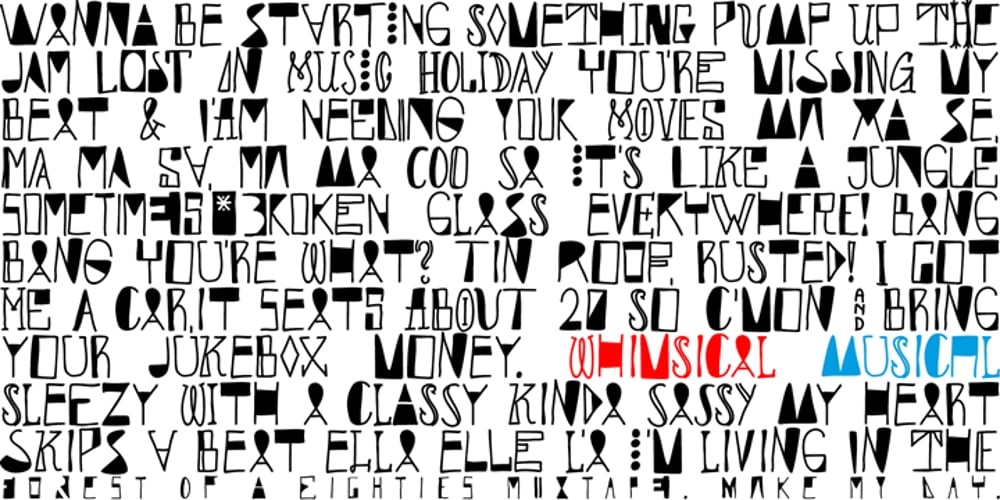
Whimsical Musical Font Family was designed by Harald Geisler and published by Harald Geisler. Whimsical Musical contains 1 styles and family package options. Whimsical Musical is a vivid, hand drawn font with 405 alternate letters, all caps. Developed from a lighthearted drawing in my sketchbook saying the German word “MUSIK” cheerfully over and over in twenty vivid variations. Next to it was the date “6th April 2007”. This initial idea has burst into a font that is full of surprises and whimsical turns. It is dynamically suggestive, like music, and humorously chaotic, as in Dada. Each uppercase letter is enriched with ten stylistic alternates (OpenType stylistic sets) to create a heap of playful variations amounting to a mountain of possibilities. Recommended for display usage: gonzo headlines, fantastical picturesque covers, extravagant quirky flyers, chichi posters, individual labels and fun logos.